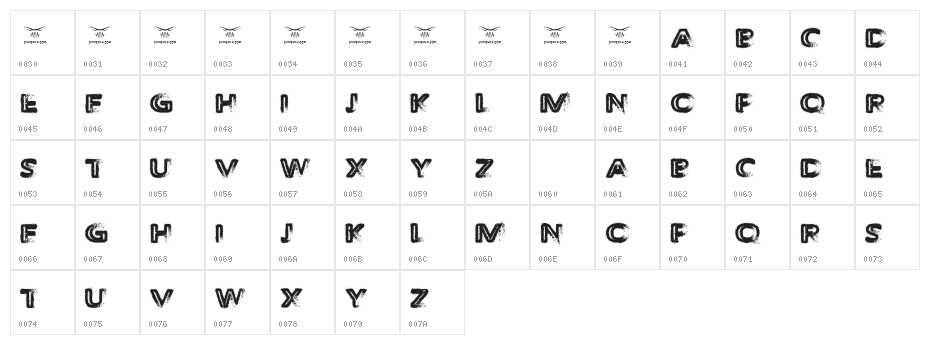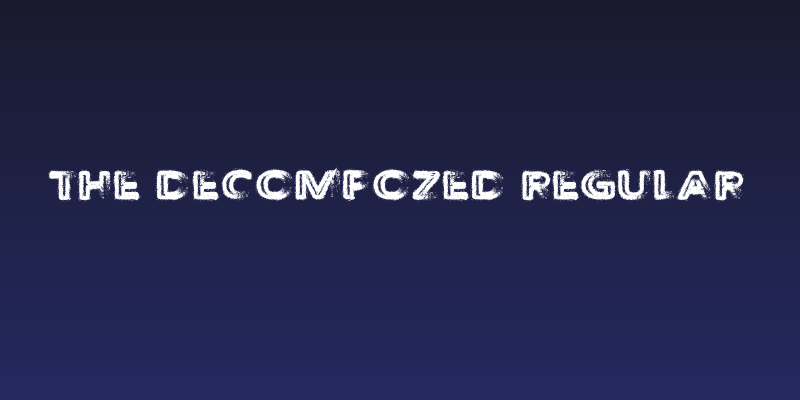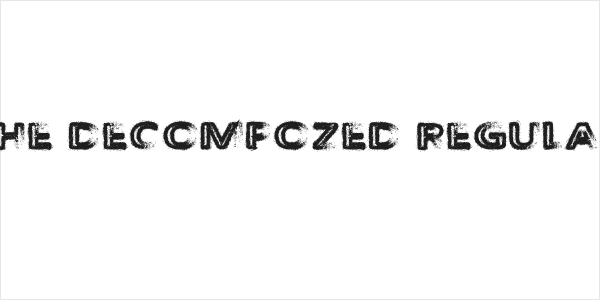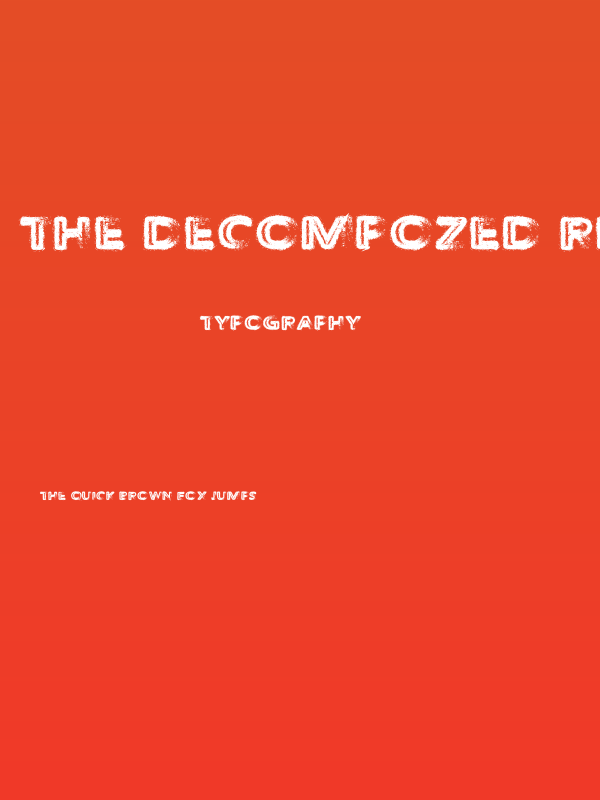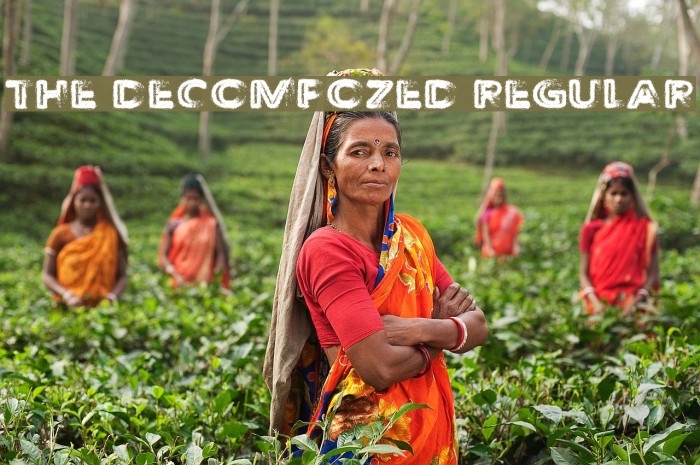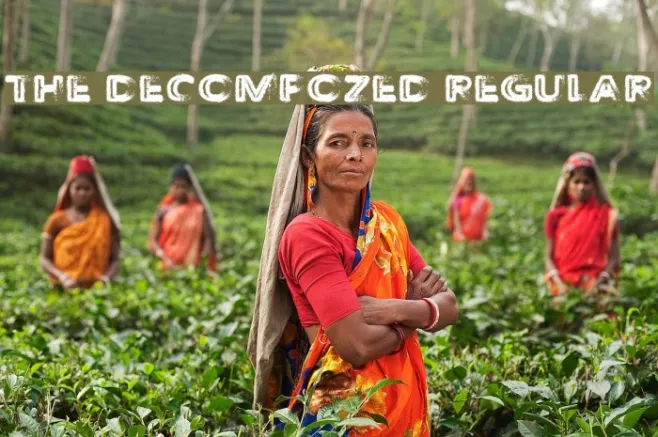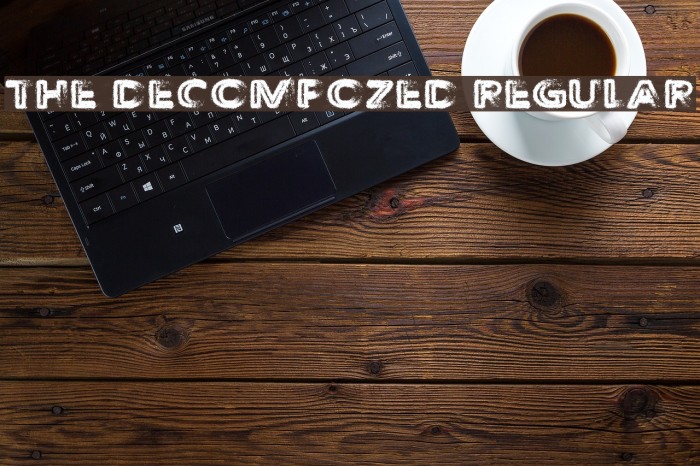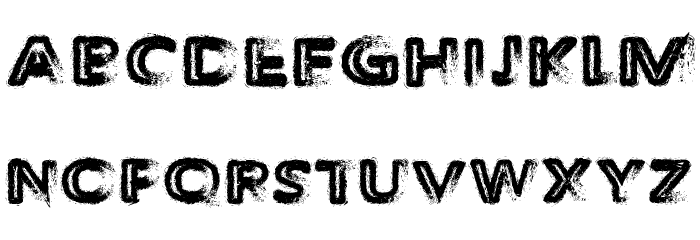
The Decompozed Regular Font
The Decompozed Regular Description
This font features a distressed, grunge style with a textured appearance that gives it a worn, decomposed look. The characters are bold and have a rough, uneven edge, creating a sense of decay and erosion. The uppercase letters are consistent in height, while the overall design maintains a uniform width. This font is particularly striking due to its unique aesthetic, which combines elements of decay with a bold, impactful presence. The texture within each letter varies, adding to the organic, unpredictable nature of the design. This font is well-suited for projects that require a raw, edgy feel, making it ideal for artistic or alternative themes.